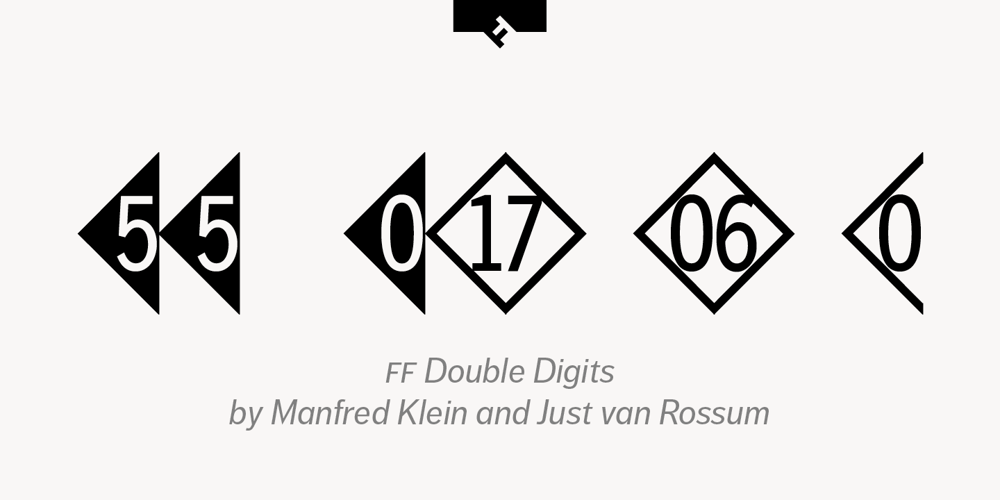
FF Double Digits Font Family was designed by Just van Rossum, Manfred Klein and published by FontFont. FF Double Digits contains 4 styles and family package options. German type designer Manfred Klein and Dutch type designer Just van Rossum created this pi and symbols FontFont in 1992. The family contains 4 weights and is ideally suited for wayfinding and signage. It comes with tabular lining figures.